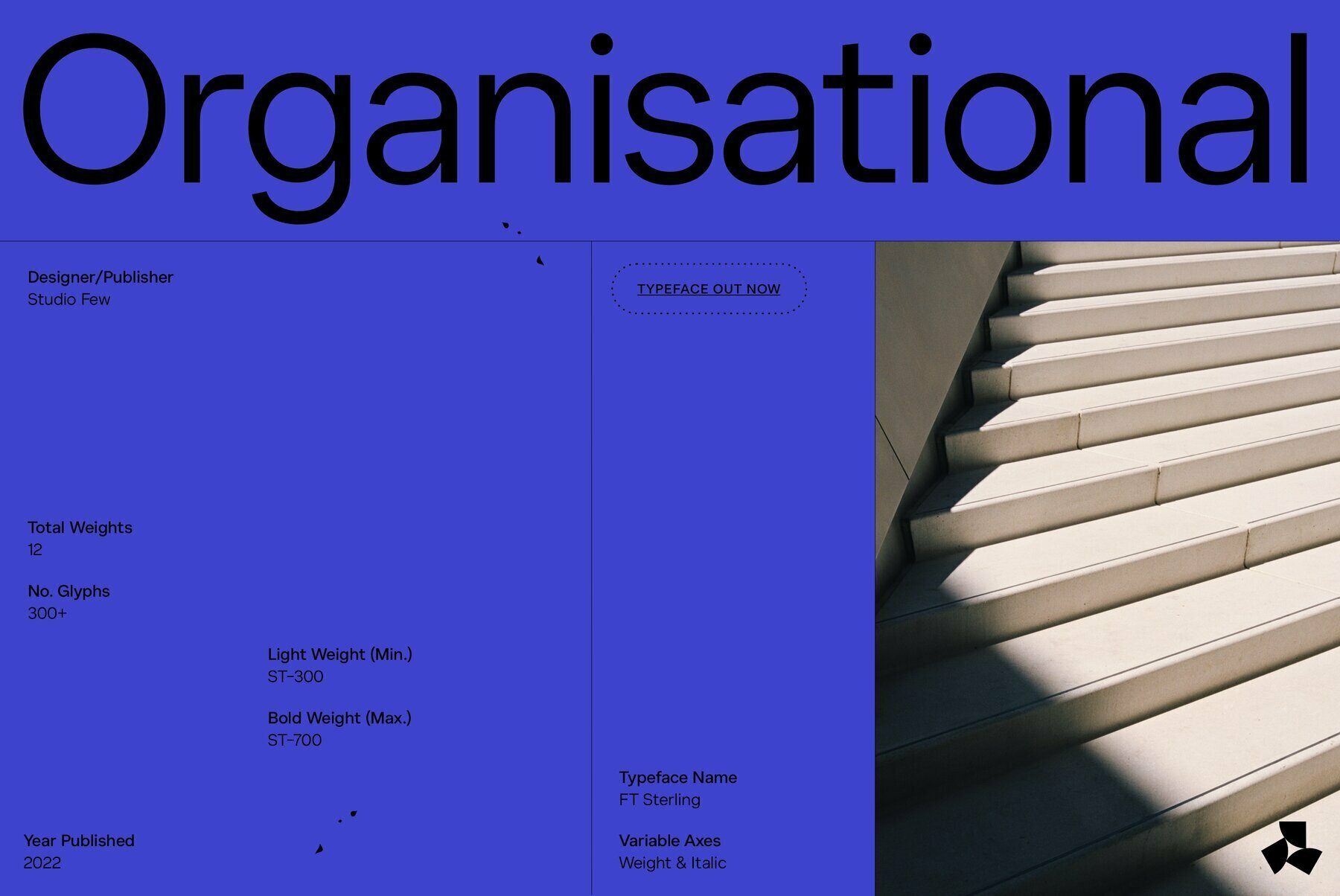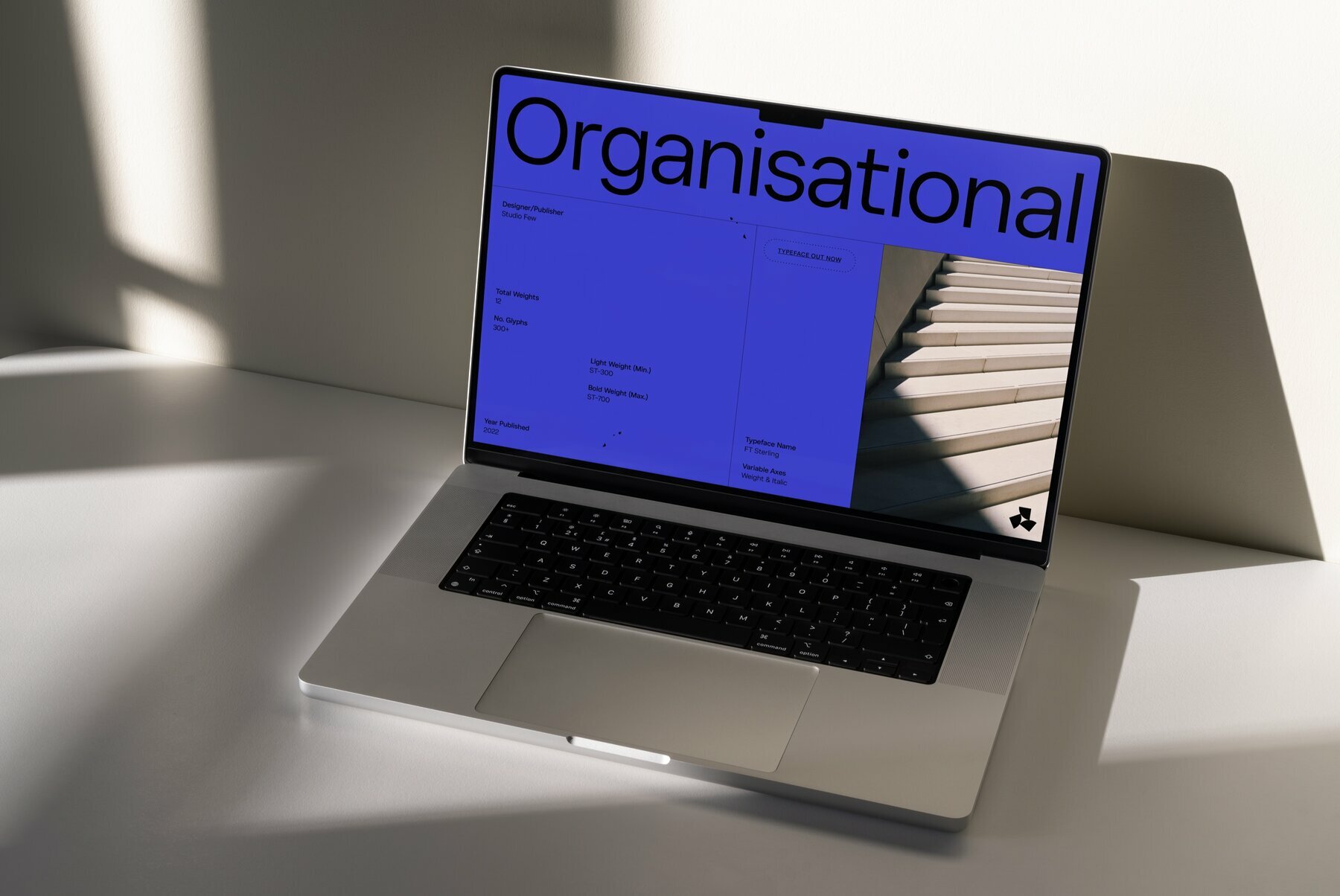
Sterling Font
Tall X-Height, Angled Terminals and Medium Contrast, Sterling is a UI font designed with personality. Originally conceived as a hybrid between Grotesque & Humanist, Sterling pairs legibility with character.
Studio Few, founded by Samuel Oakes, is a renowned type foundry celebrated for its minimalist and purposeful font designs. Focused on refining typography to its purest form, Studio Few believes that every design decision should carry meaning without excess or complexity. For nearly a decade, Studio Few has bee...